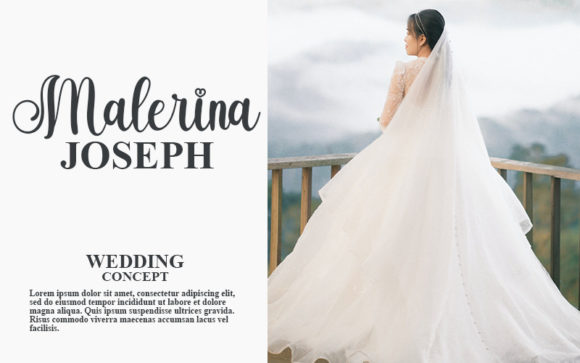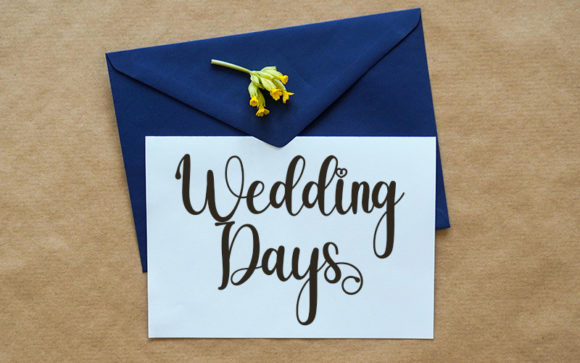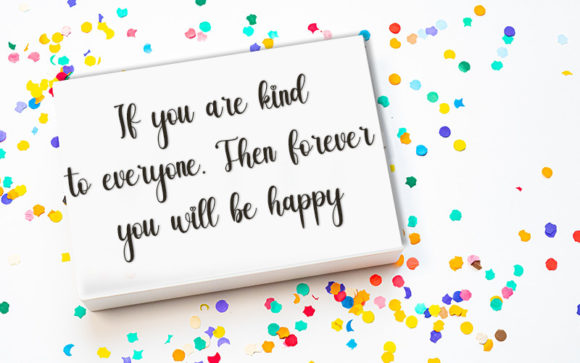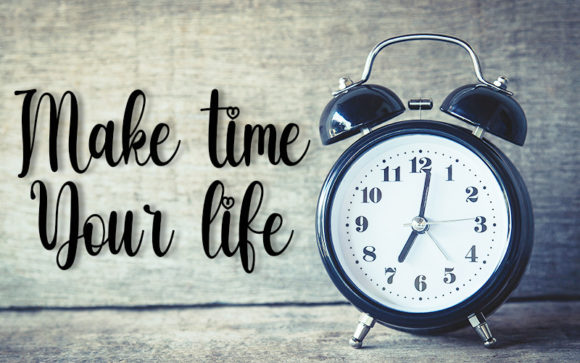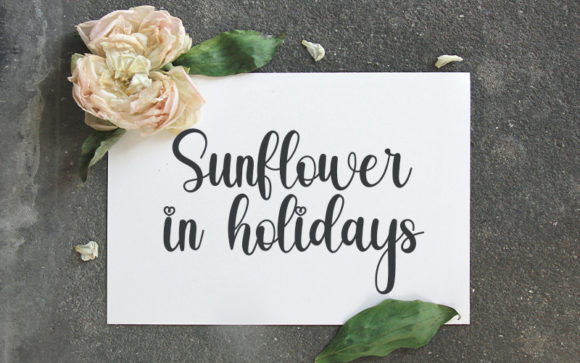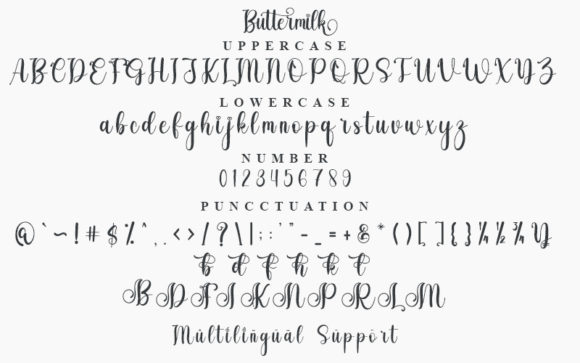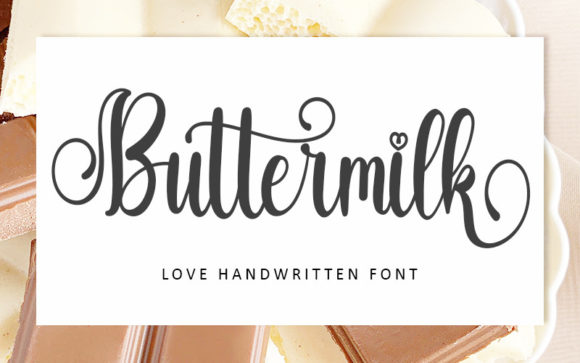
The Magic of Buttermilk Font: Elevate Your Designs with Luxury and Elegance
I’ll never forget the moment I stumbled upon the perfect font for a client’s wedding invitation project. I had been searching for hours, trying out different fonts, but none seemed to capture the luxury and elegance the couple was looking for. That was until I discovered Buttermilk Font. ✨ This enchanting script font has since become a staple in my design toolkit, and I’m excited to share its magic with you.
An Honest Review of Buttermilk Font
Buttermilk Font is a true gem, and here’s what I love about it:
- ✨ Luxurious and elegant: Buttermilk Font adds a touch of sophistication to any design project.
- ✅ PUA encoded: Easily access all the amazing glyphs and ligatures without any hassle.
- ✅ Highly versatile: Perfect for a wide range of design projects, from wedding invitations to branding and packaging.
While Buttermilk Font is a fantastic font, there are a few small quirks to be aware of:
- ⚠️ Occasional kerning issues: Like with any font, you may need to adjust kerning in certain situations.
- 🤔 Not suitable for body text: Buttermilk Font is best used for headings and titles, as it can be a bit too ornate for longer blocks of text.
The Story Behind Buttermilk Font
Buttermilk Font was designed with the intention of creating a luxurious and elegant script font that would add a touch of sophistication to any design project. The designer, inspired by classic calligraphy and handwriting, crafted Buttermilk Font to be both beautiful and versatile.
| What is Buttermilk Font? | Buttermilk Font is a luxurious and elegant script font, PUA encoded for easy access to glyphs and ligatures. |
| Is Buttermilk Font suitable for body text? | No, Buttermilk Font is best used for headings and titles, as it can be a bit too ornate for longer blocks of text. |